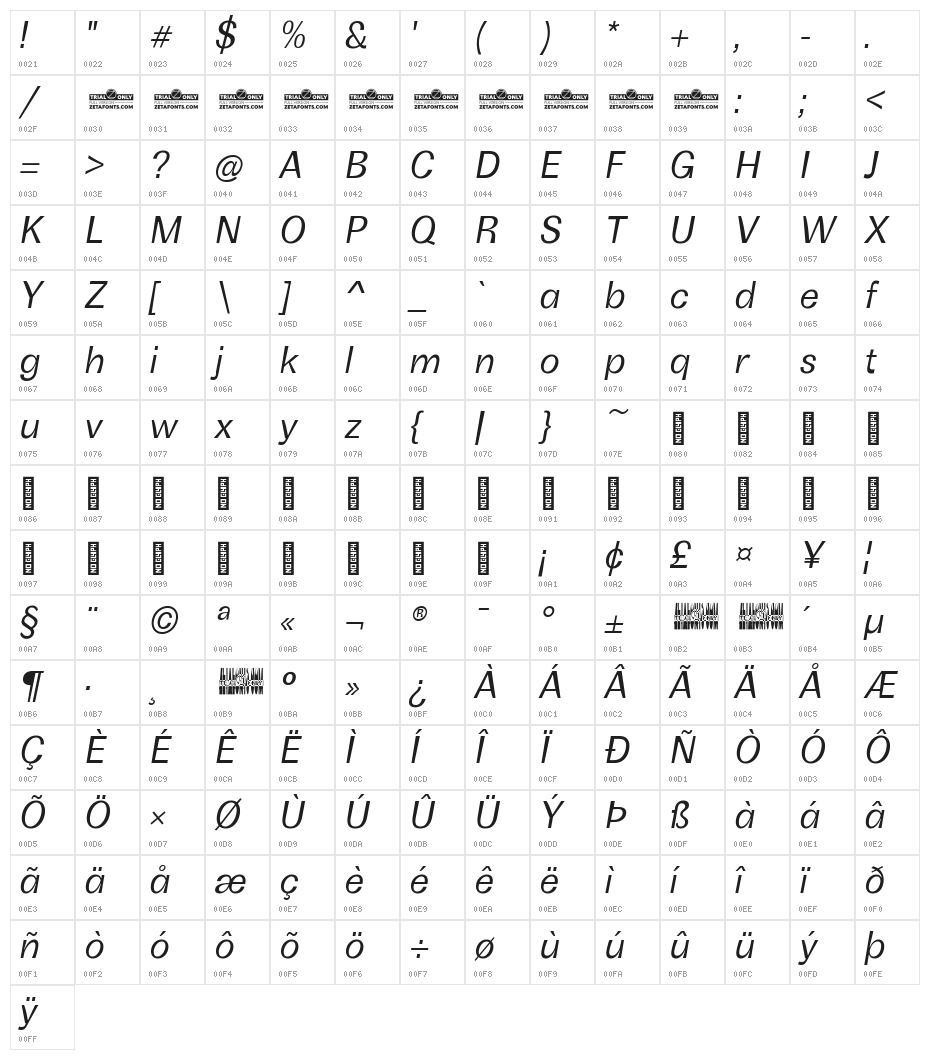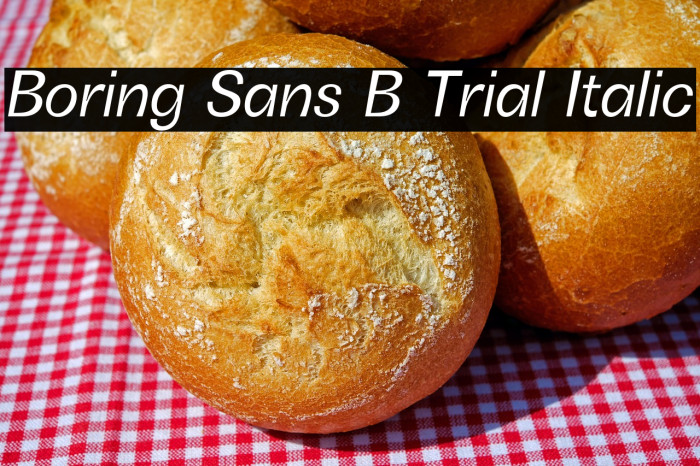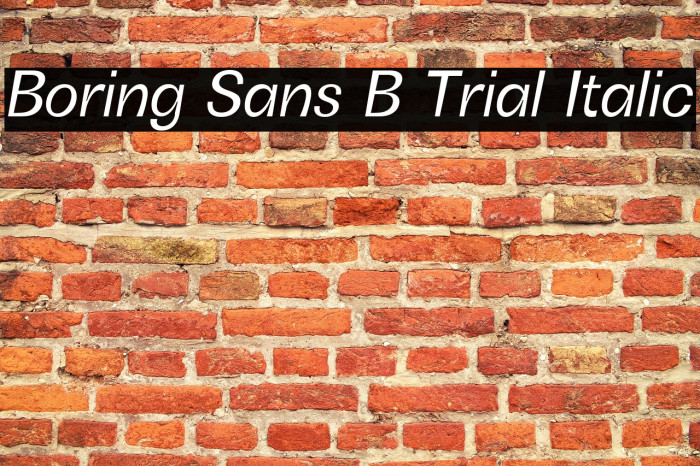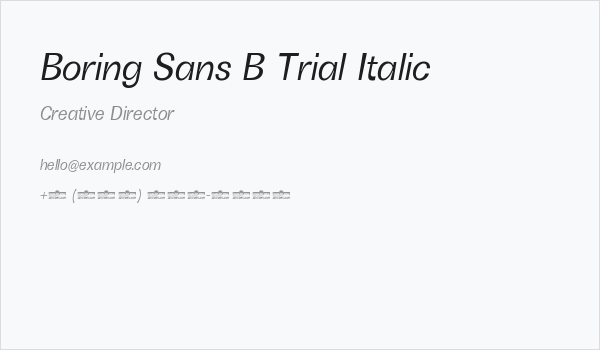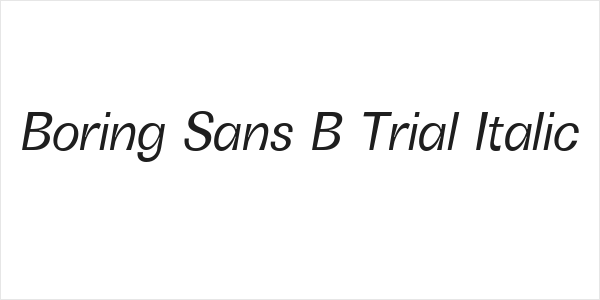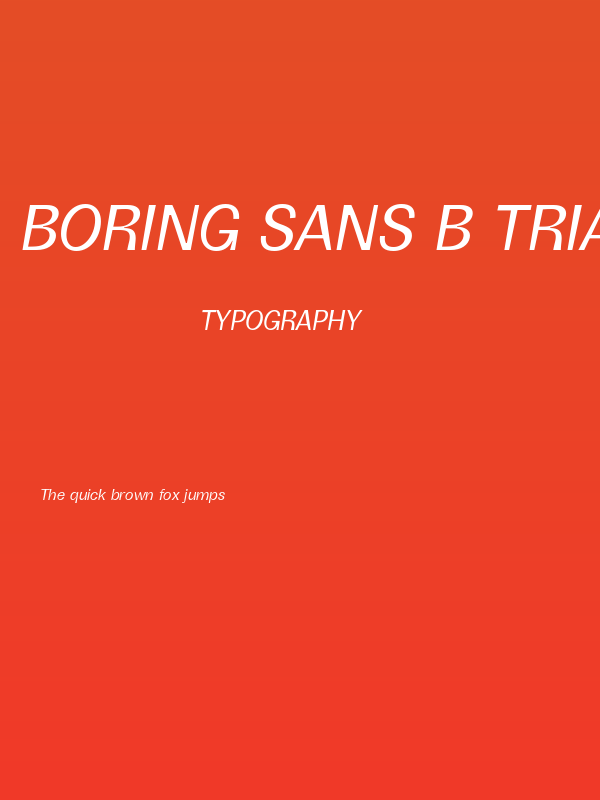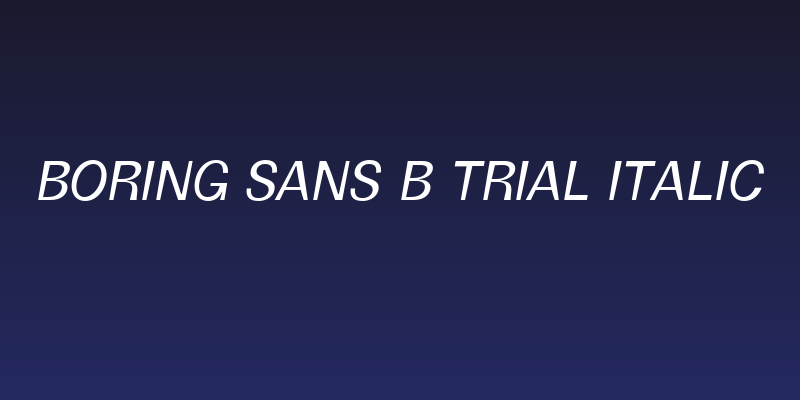
Boring Sans B Trial Italic Font
Boring Sans B Trial Italic Description
This font exhibits a clean and modern sans-serif style with a subtle italic slant, giving it a sleek and dynamic appearance. The characters are well-proportioned, with smooth curves and straight lines that enhance readability. The uppercase and lowercase letters maintain a consistent design, ensuring a harmonious look across different text sizes. The numerals and special characters are designed to match the overall aesthetic, providing a cohesive visual experience. Its simplicity and elegance make it suitable for a wide range of applications, from digital interfaces to print media.
| Proposed Projects | Ideal for web design, branding, advertising, and editorial content where a modern and clean appearance is desired. |